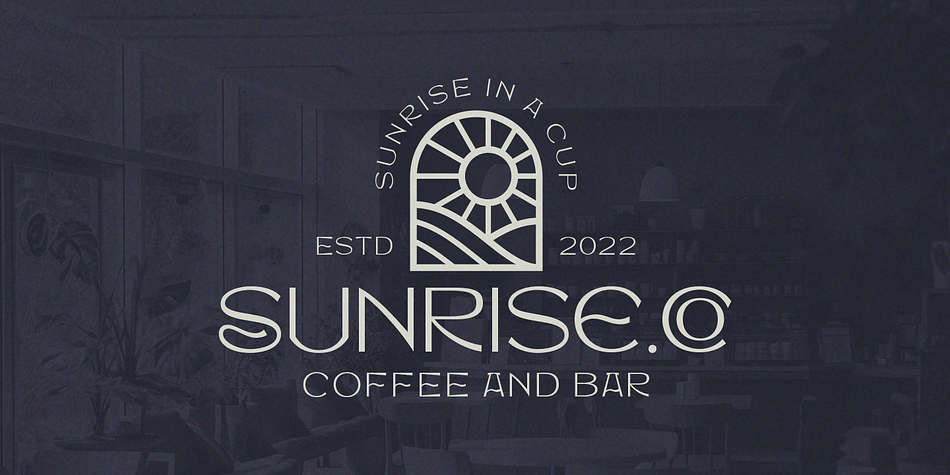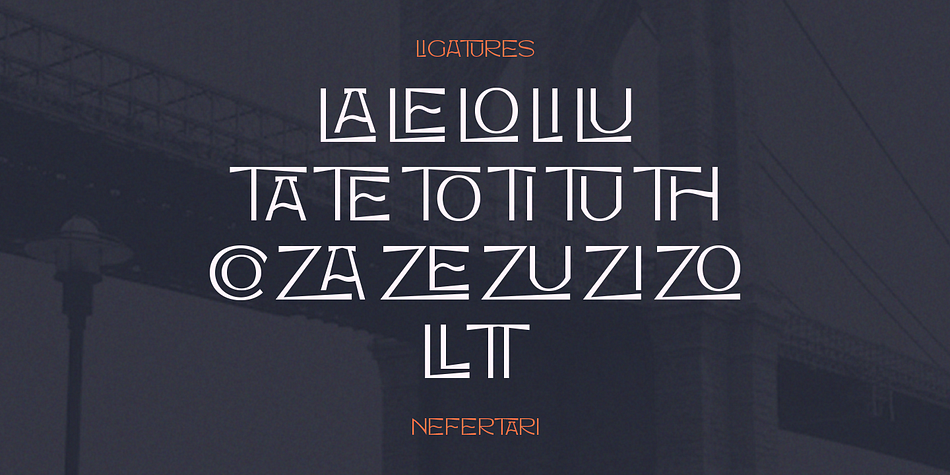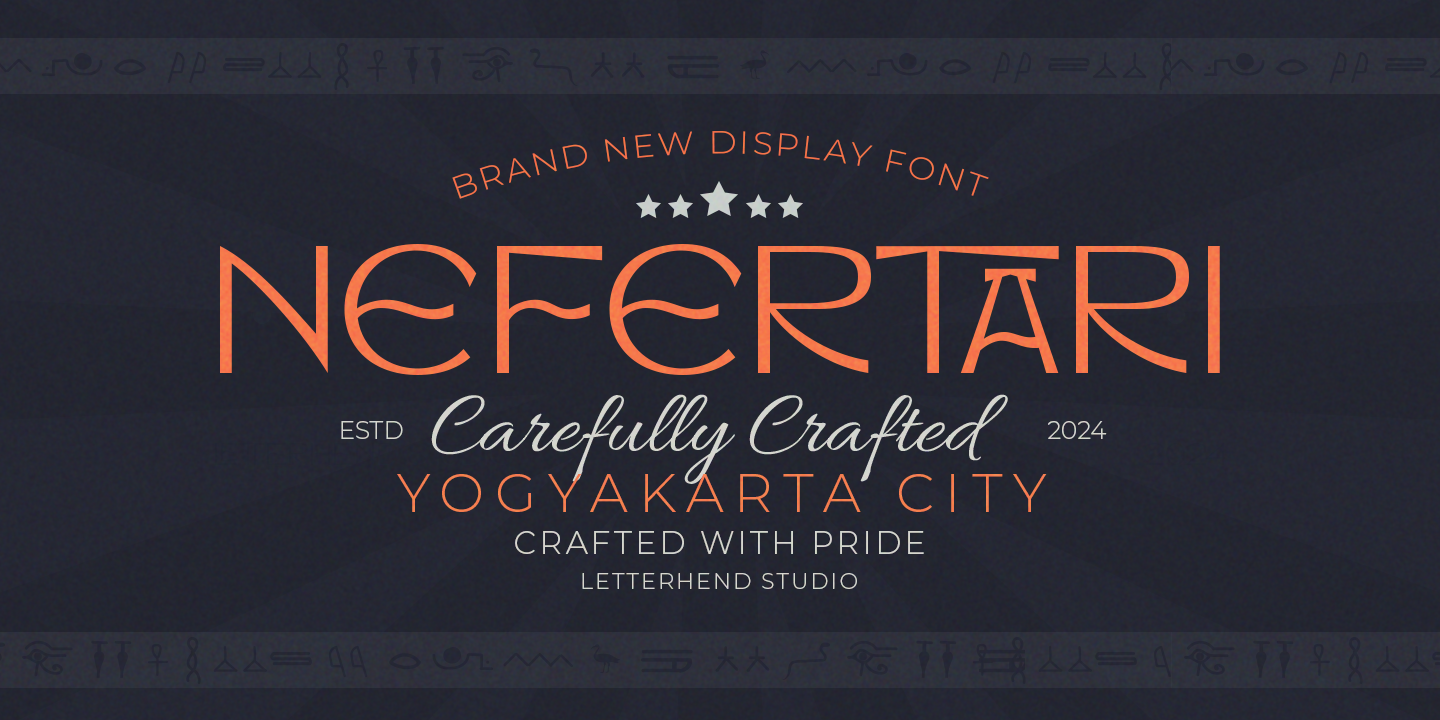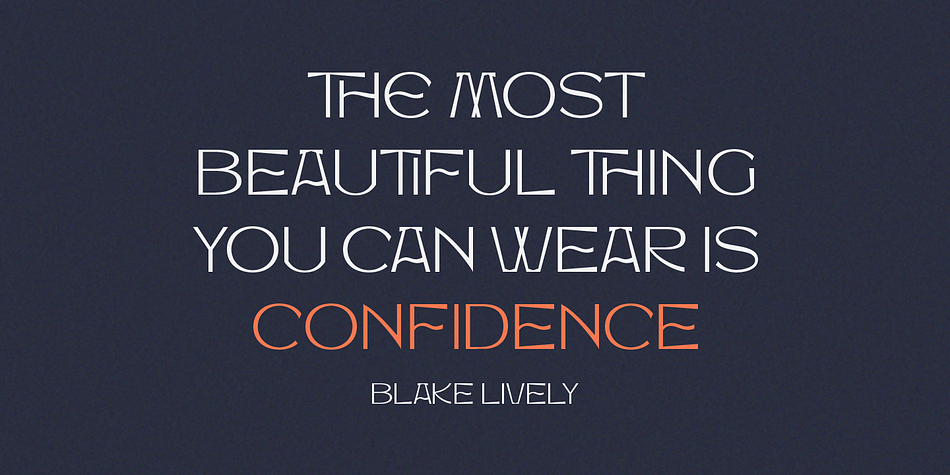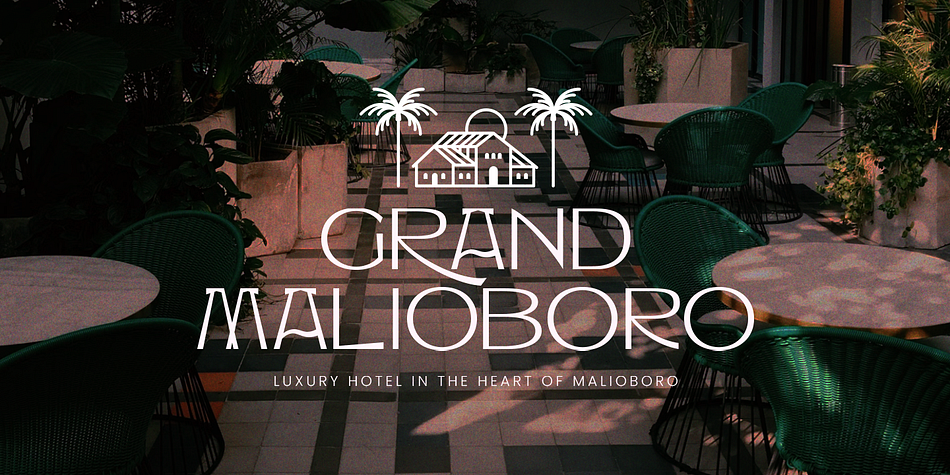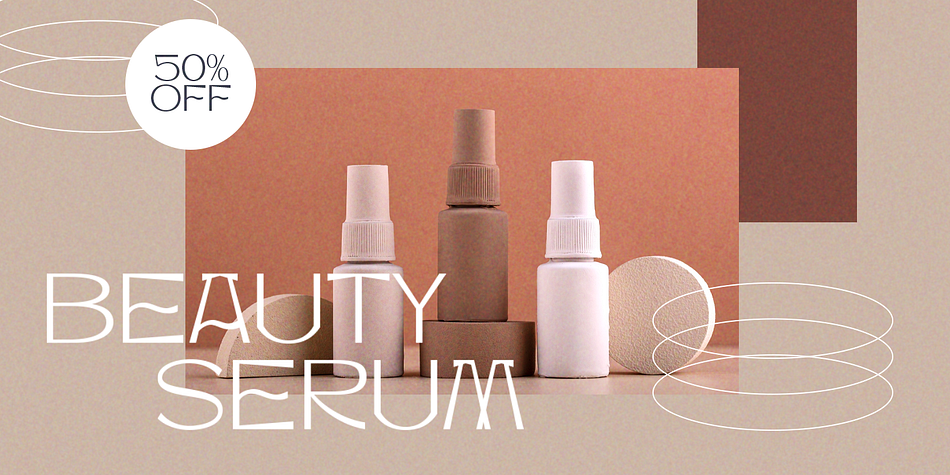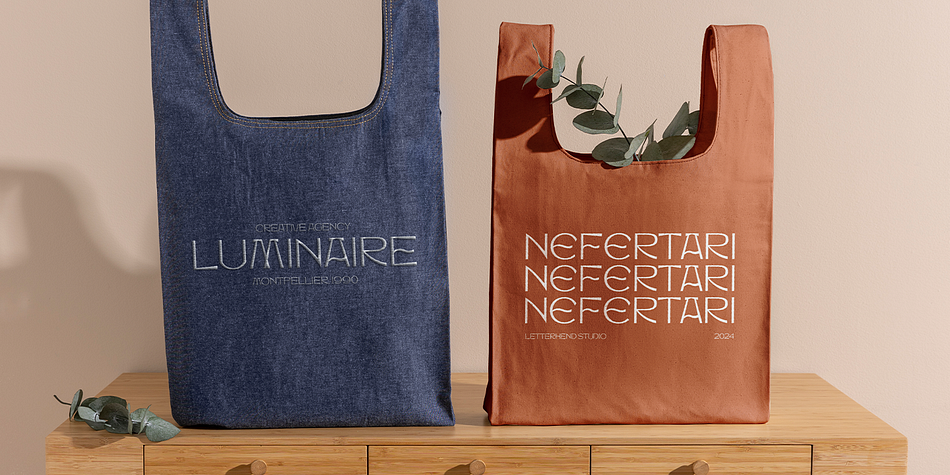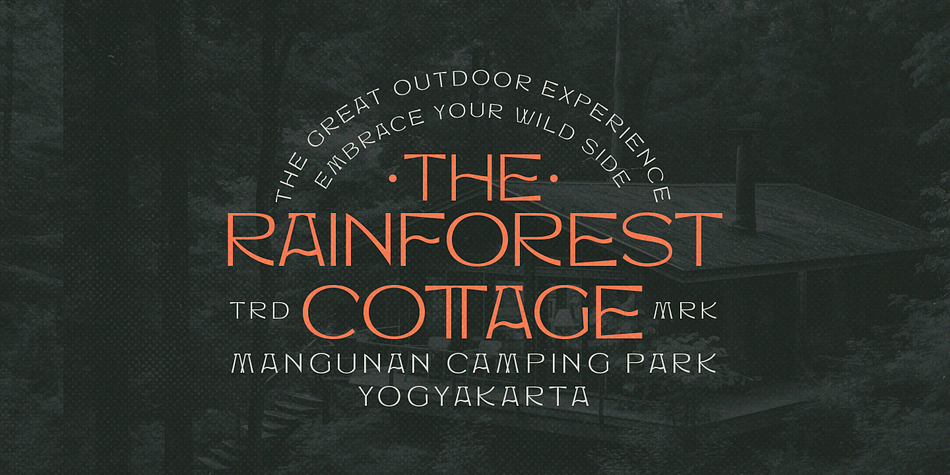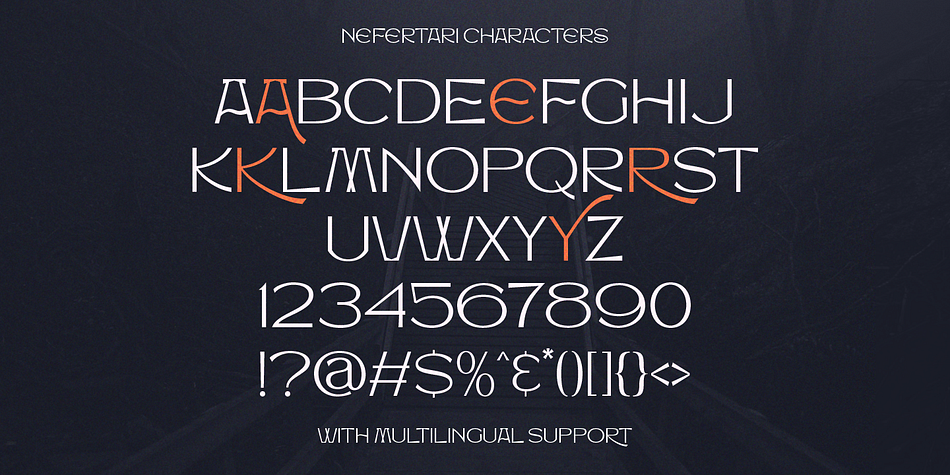
NEFERTARI
Designed by Hendry Juanda, Nefertari is a display sans font family published by Letterhend Studio.
Nefertari is a new display with unique letterform. This typeface has been made carefully to make sure its premium quality. Very suitable for logo, headline, tittle, and the other various formal forms such as invitations, labels, logos, magazines, books, greeting / wedding cards, packaging, fashion, make up, stationery, novels, labels or any type of advertising purpose.
- Alternates & Ligatures